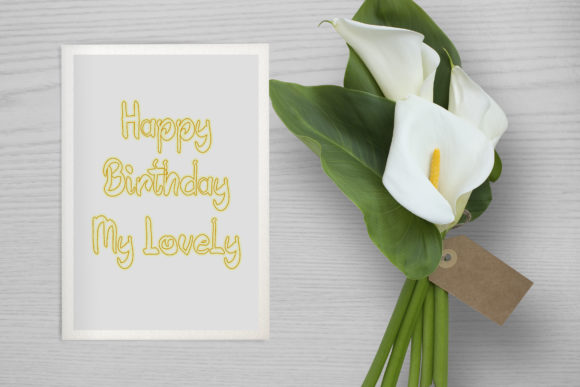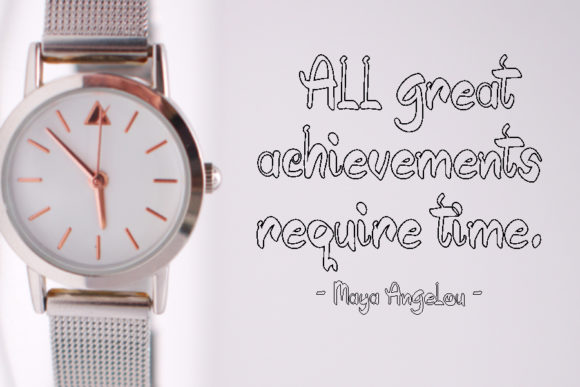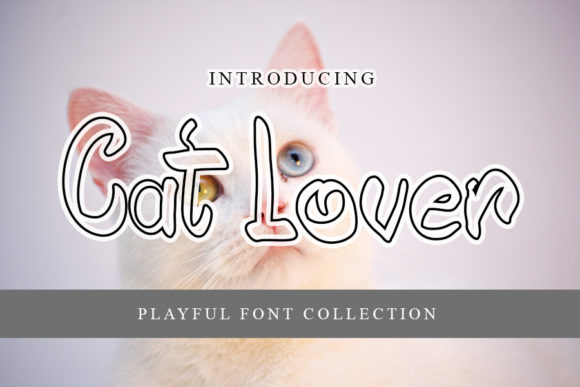
Introducing the Purrfect Typeface: Cat Lover Font
Are you a feline fanatic looking for a font that captures the playful and carefree spirit of your beloved cat? Look no further than the Cat Lover Font, a fun and relaxed outlined display font that’s sure to elevate your designs to new heights. With its unique blend of whimsy and sophistication, this versatile typeface is perfect for designers, crafters, and cat enthusiasts alike.
What Makes Cat Lover Font So Special?
Cat Lover Font is a one-of-a-kind typeface that’s designed to bring a touch of feline flair to your designs. Its outlined style gives it a lighthearted and airy feel, making it perfect for projects that require a playful and carefree vibe. Whether you’re creating a logo, poster, or social media graphic, this font is sure to add a dash of personality and whimsy to your work.
Endless Possibilities
One of the best things about Cat Lover Font is its incredible versatility. This font can be used for a wide range of designs, from:
- Cute cat-themed merchandise, such as mugs, t-shirts, and tote bags
- Fun and playful posters and flyers for cat cafes, adoption events, or pet-related businesses
- Whimsical logos and branding materials for cat lovers and pet enthusiasts
- Social media graphics and quotes that showcase your love for felines
- DIY craft projects, such as handmade cards, gift tags, and scrapbooking pages
Why Designers and Crafters Love Cat Lover Font
Designers and crafters alike will love working with Cat Lover Font for several reasons:
- Easy to read: Despite its playful style, Cat Lover Font is incredibly legible, making it perfect for designs that require a clear and concise message.
- Highly customizable: The outlined style of this font allows for endless customization options, from changing the color and thickness of the lines to adding textures and patterns.
- Unique and eye-catching: Cat Lover Font is sure to turn heads with its distinctive and stylish design, making it perfect for projects that require a bit of flair.
Tips for Using Cat Lover Font
To get the most out of Cat Lover Font, here are a few tips to keep in mind:
- Pair it with a solid color: The outlined style of Cat Lover Font looks amazing when paired with a bold and bright solid color. Try pairing it with a vibrant pink or electric blue to create a fun and playful design.
- Add some texture: The outlined style of this font also lends itself well to texture and pattern. Try adding a subtle gradient or texture to give your design some extra depth and interest.
- Experiment with sizes: Cat Lover Font looks amazing in a variety of sizes, from small and delicate to large and bold. Experiment with different sizes to find the perfect fit for your design.